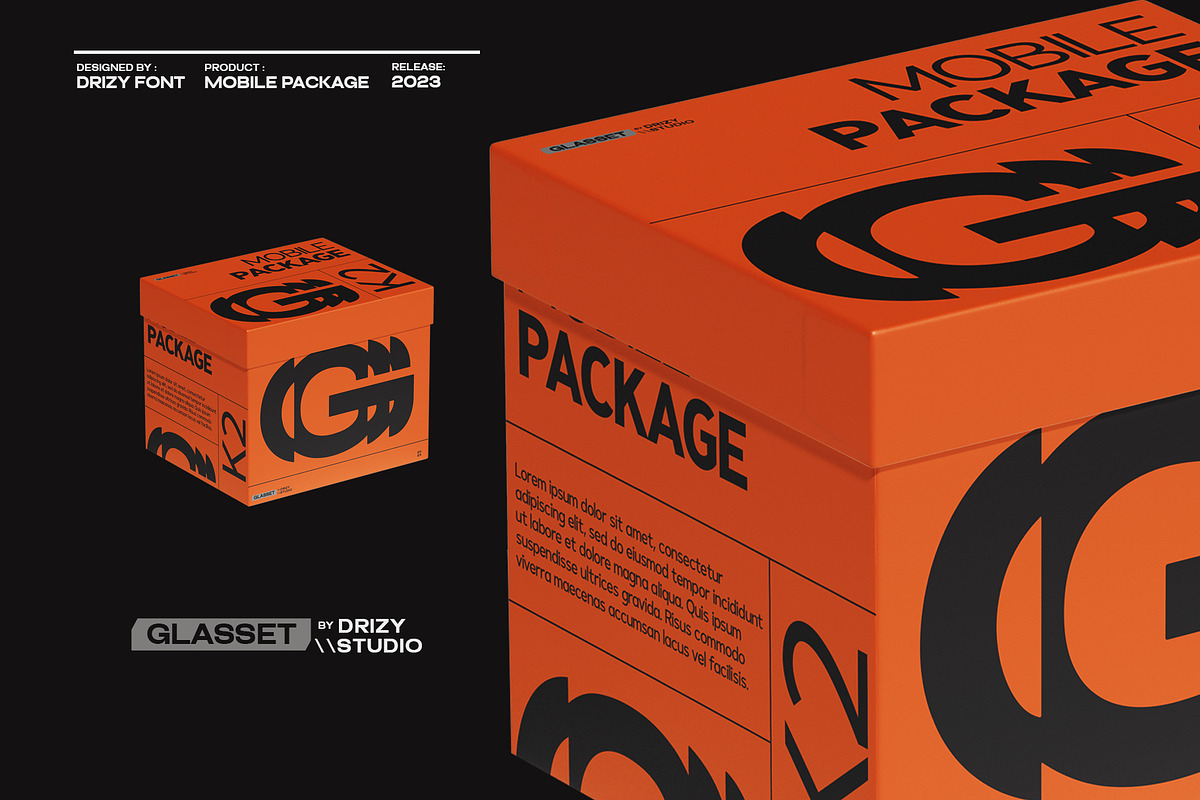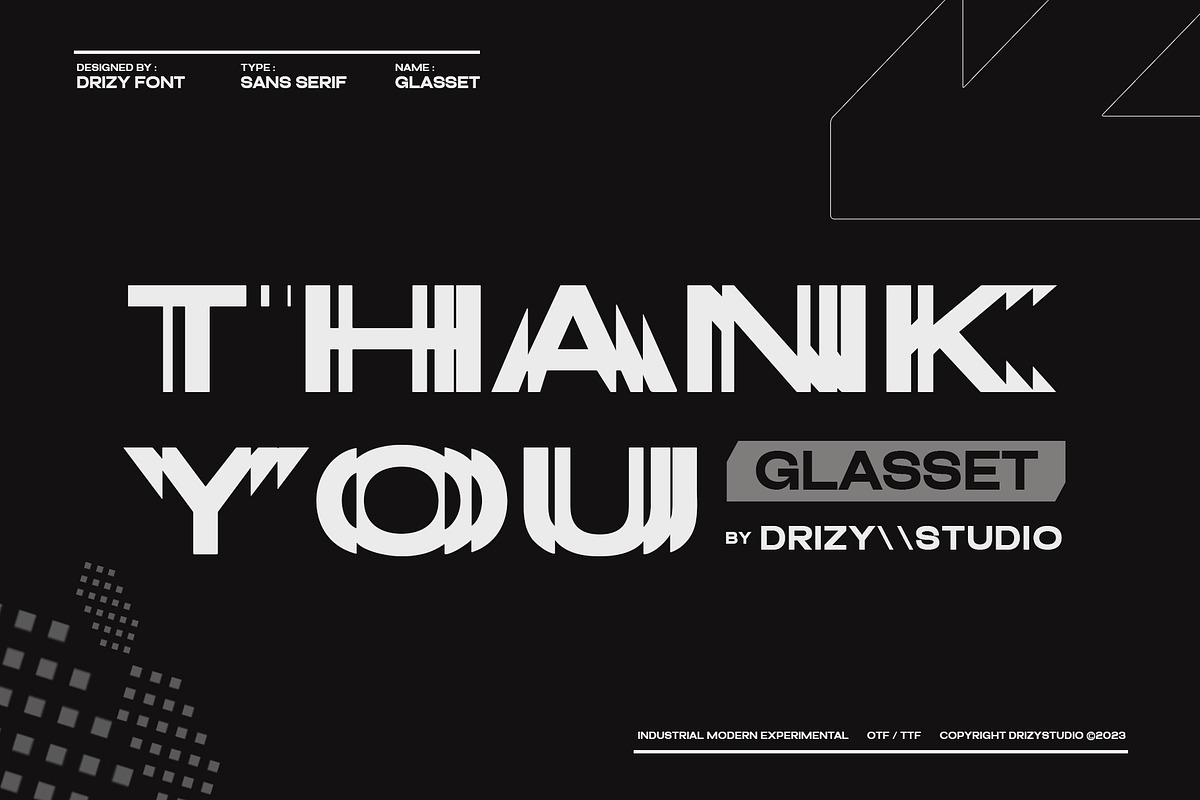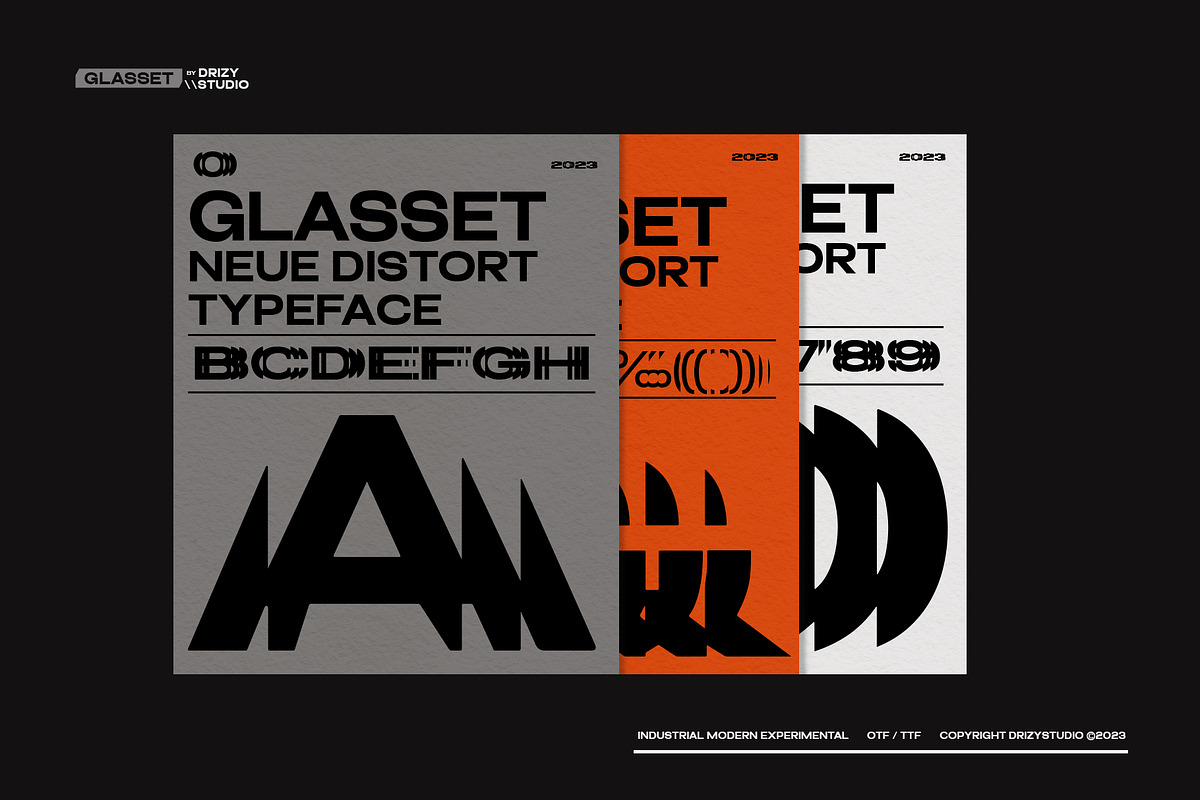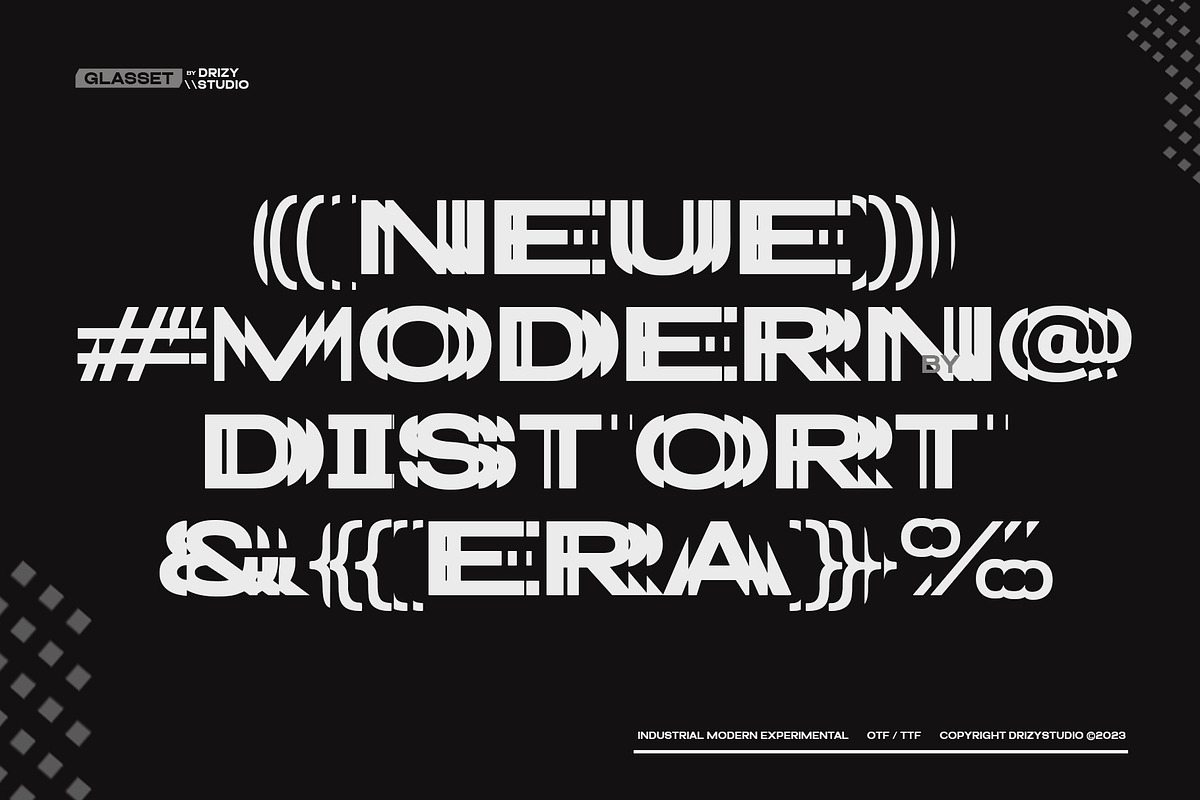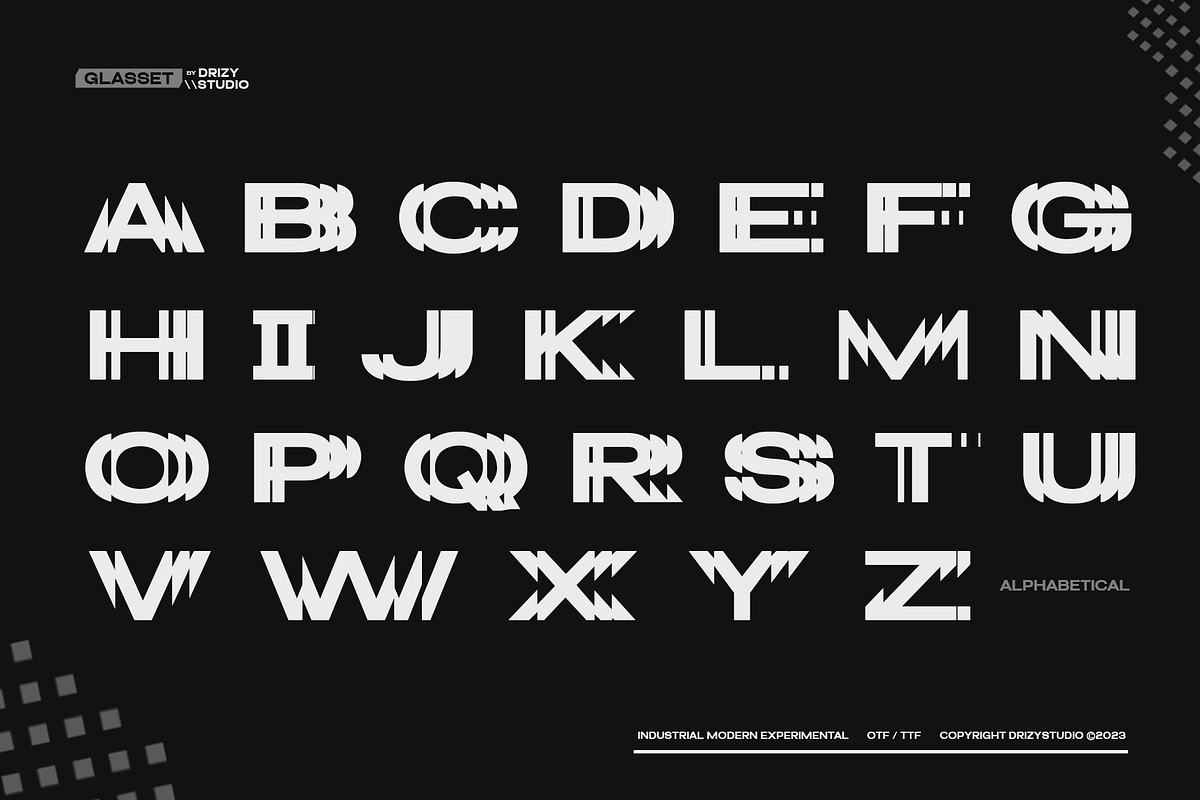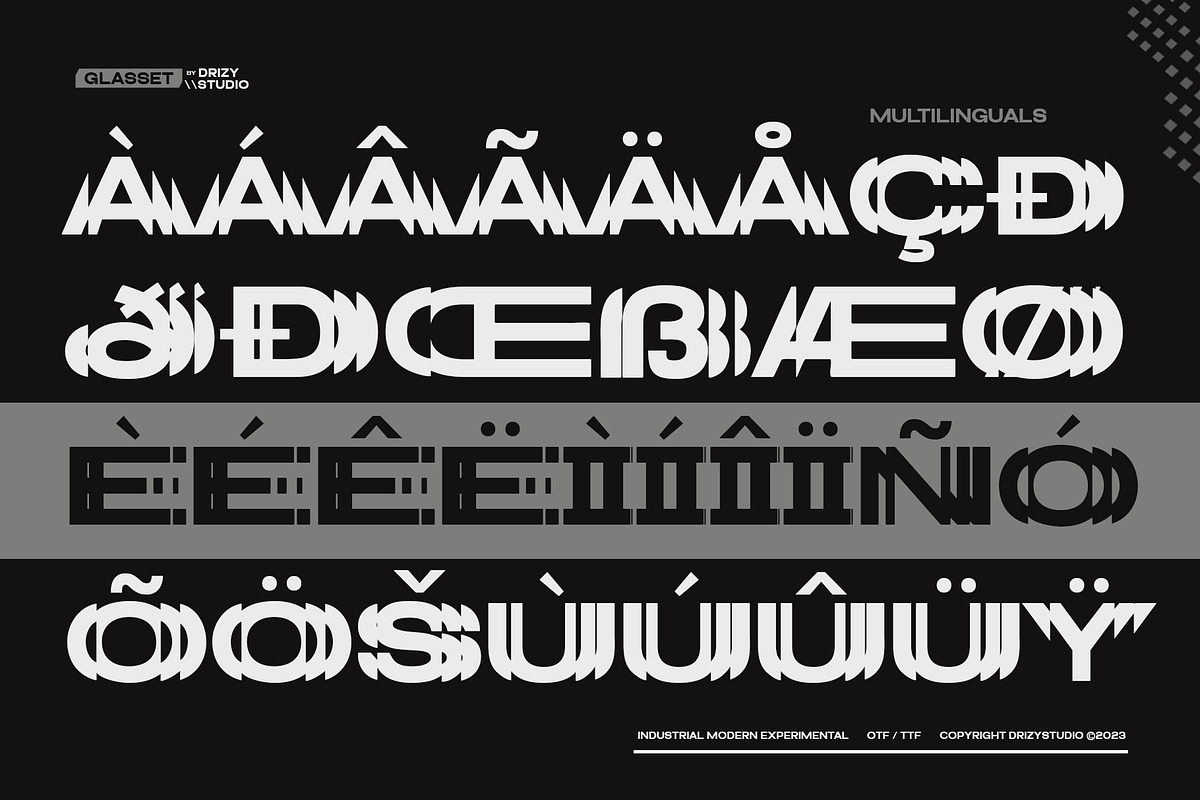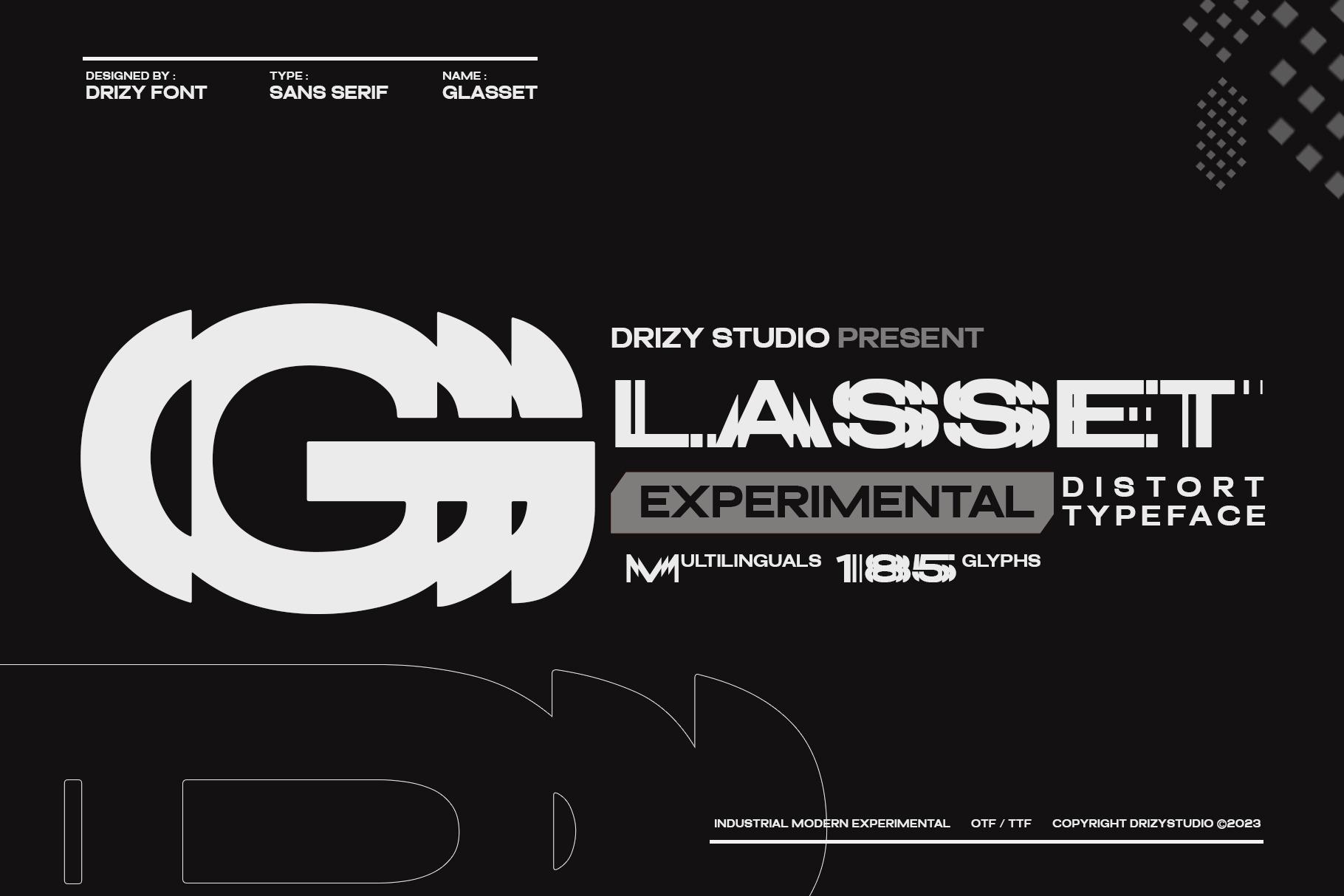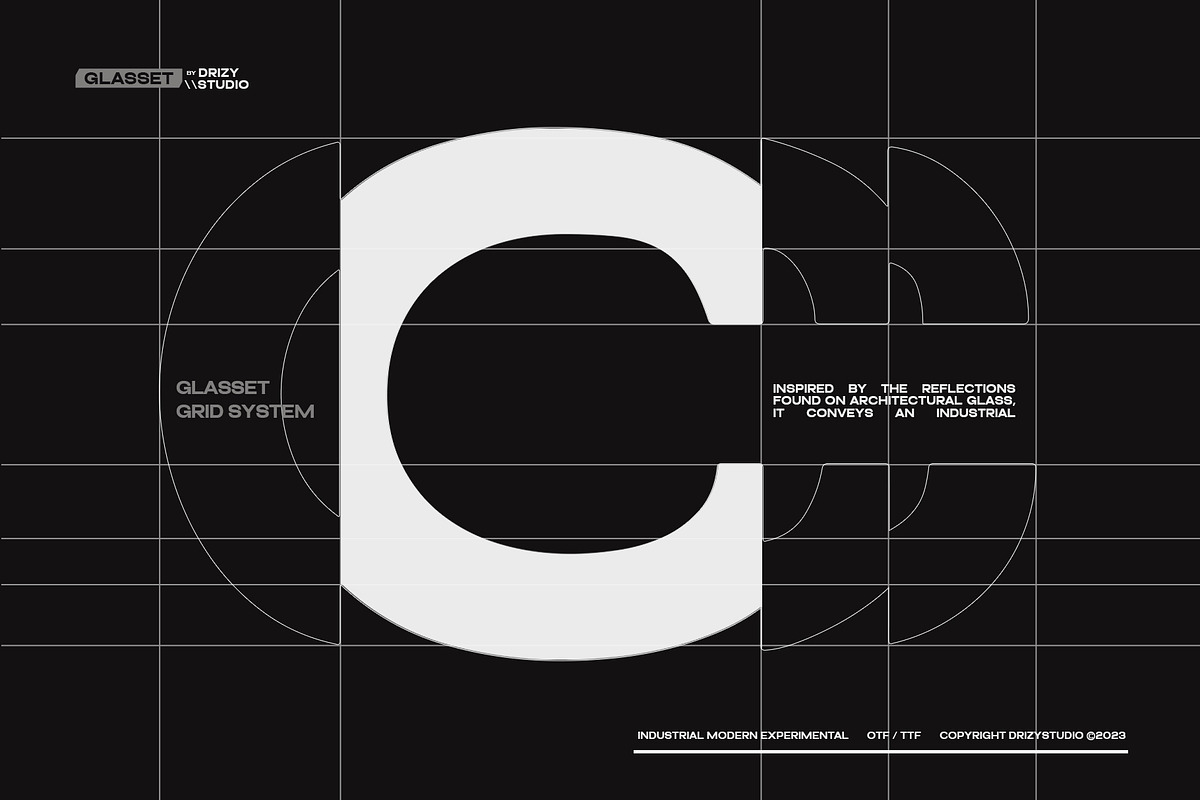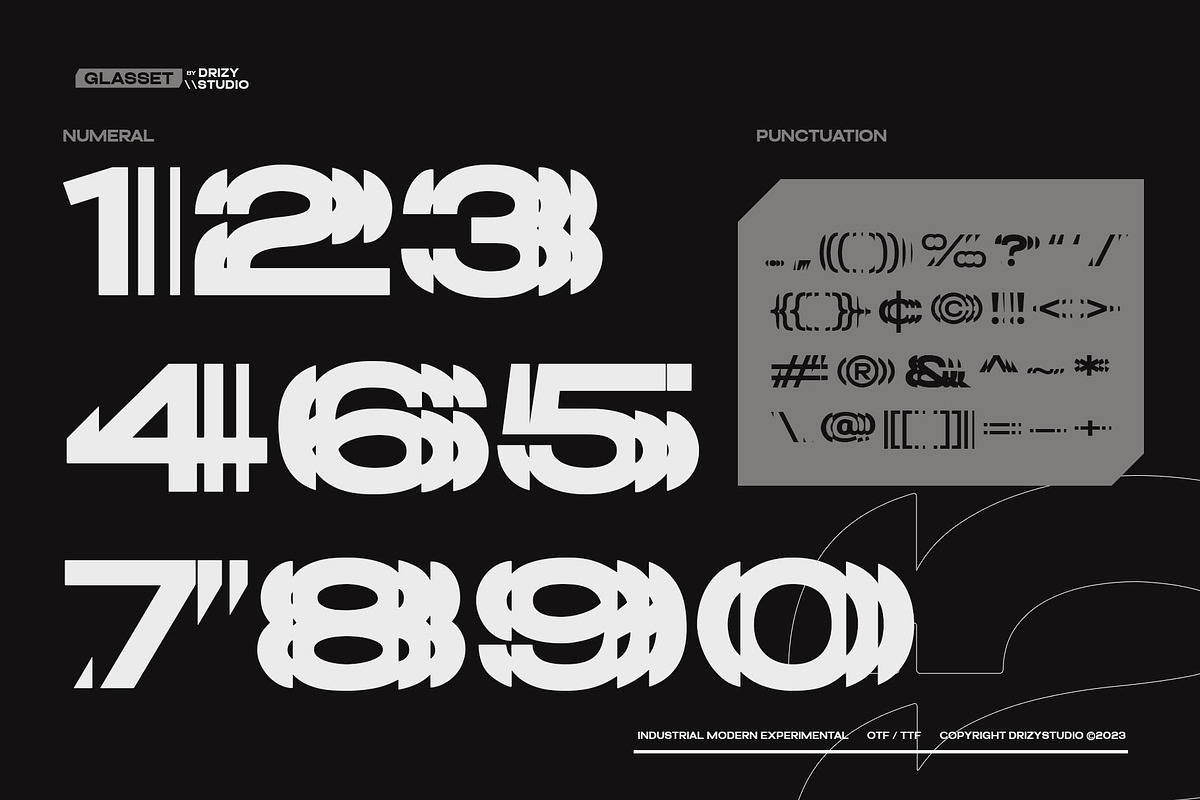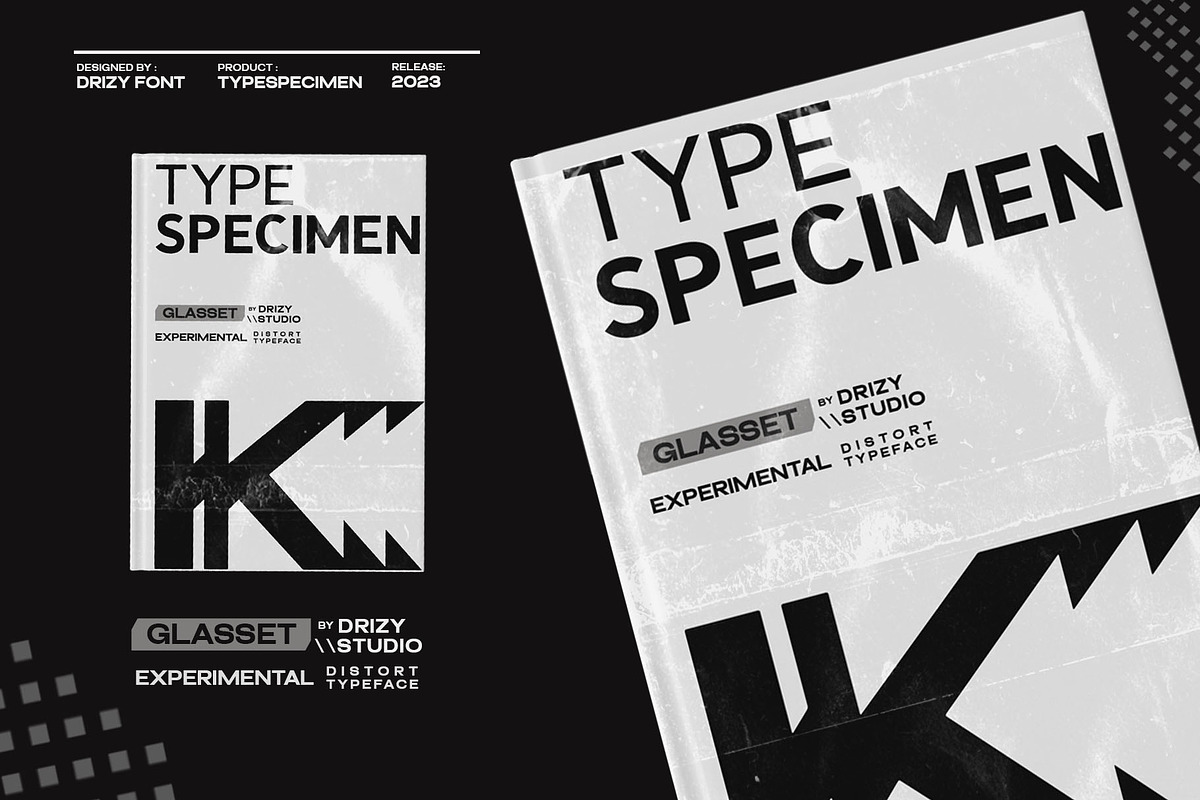
Glasset – Experimental Distort Font
Glasset – Experimental Distort Typeface
Introducing our Glasset – experimental distort typeface. It deliberately distorts and manipulates characters in innovative and often abstract ways to create a unique visual impact. Glasset is a distorted font that intentionally alters the traditional letterforms, creating a visually unique and often unconventional appearance. Its creative and experimental design challenged the norms of legibility and structure.
Glasset features:
- Character Set
- Punctuation & Numbers